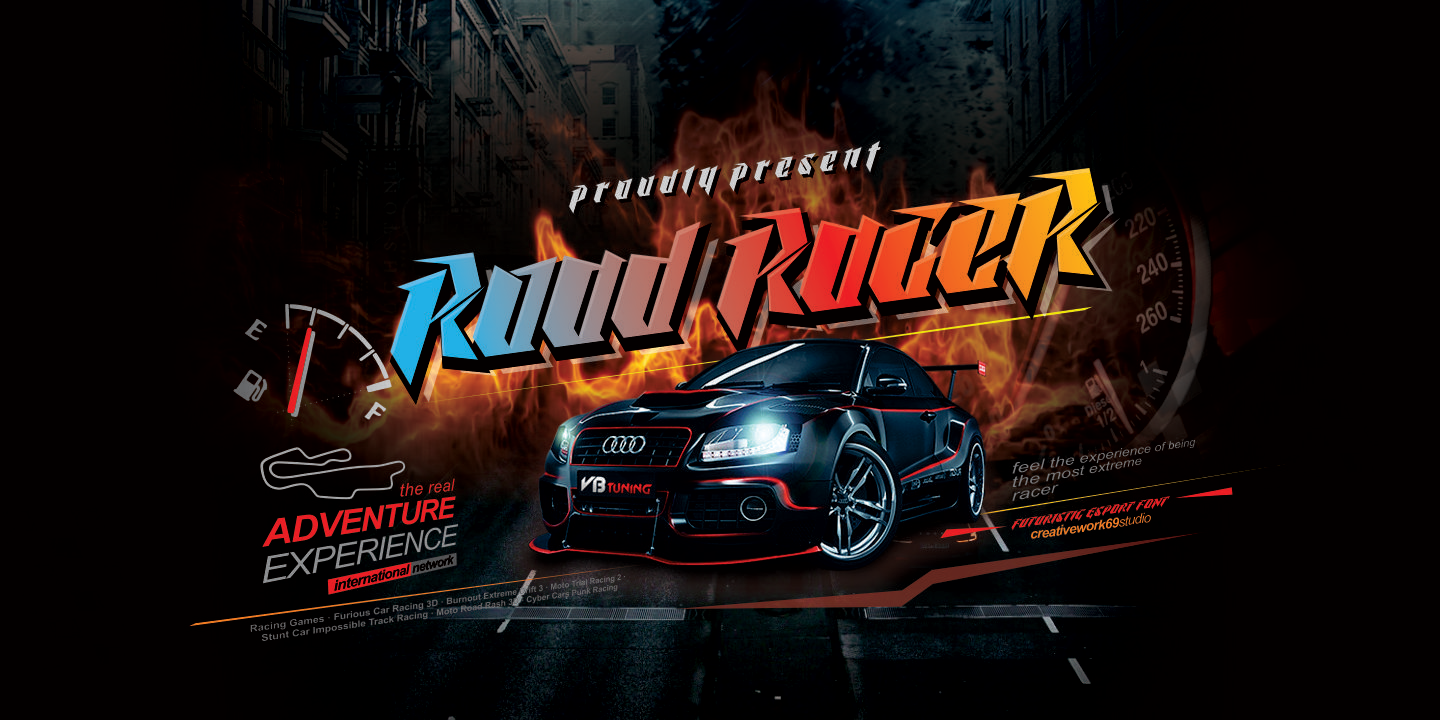
Road Racer Font is a dynamic and high-octane typeface, perfectly suited for projects that demand speed, adrenaline, and an unmistakable sense of aggressive momentum. Imagine it dominating the branding for a motorsports event, adding a thrilling and powerful edge to automotive advertising, or making an unmissable statement on sports apparel and team logos. It's also an excellent choice for crafting striking video game titles, designing impactful merchandise for action-oriented brands, or bringing an energetic, competitive vibe to digital content and promotional materials. If you're looking to convey velocity, intensity, and an undeniable spirit of championship, Road Racer Font is an outstanding selection.
What makes Road Racer Font so exciting? It’s its unparalleled ability to combine a robust, streamlined construction with distinctive, often angular or slanted details that evoke the sensation of rapid movement. This font is designed to stand out, with its bold strokes and aggressive posture making it ideal for display purposes where impact and excitement are paramount. Despite its powerful visual presence, Road Racer Font is crafted to maintain excellent readability, ensuring that your message is delivered with both clarity and significant force. Designers will appreciate its versatility in creating designs that are both visually assertive and deeply memorable, making it a go-to choice for projects that need to embody raw power and a sense of imminent action.
The Road Racer Font family is typically designed to maximize its formidable and distinctive aesthetic. While it might primarily feature a strong Regular or Bold weight, you could find variations that enhance its utility, such as distressed versions for a more rugged, battle-worn feel, or stylistic alternatives that offer more creative typographic possibilities to deepen its aggressive appeal. These variations ensure that Road Racer Font maintains its cohesive and high-impact visual identity across different design applications, from monumental titles to supporting text that still carries significant weight. Discover the formidable power of Road Racer Font Free Download and infuse your designs with an unforgettable sense of speed and triumph.